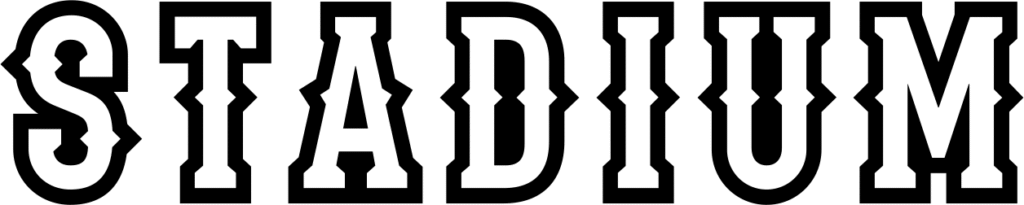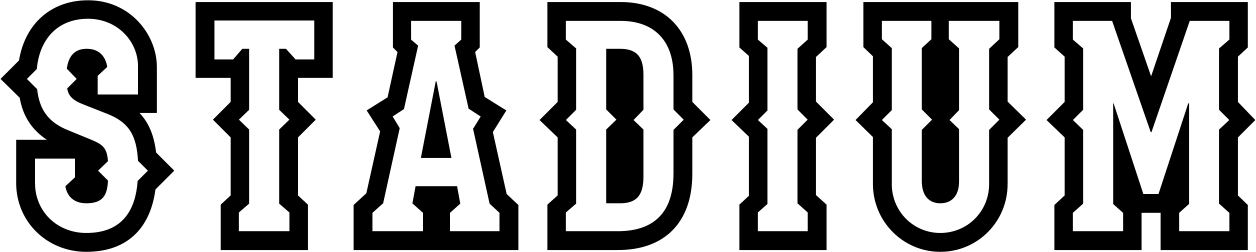
Stadium Font
If you want to make a flawless design, you need a perfect font. That’s why we recommend you take a look at this Western font right now. This one includes 2 different styles but the lowercase letters are not supported. You can choose the outline one for titles and the other one for body content. Download American Sports font right now and enjoy.